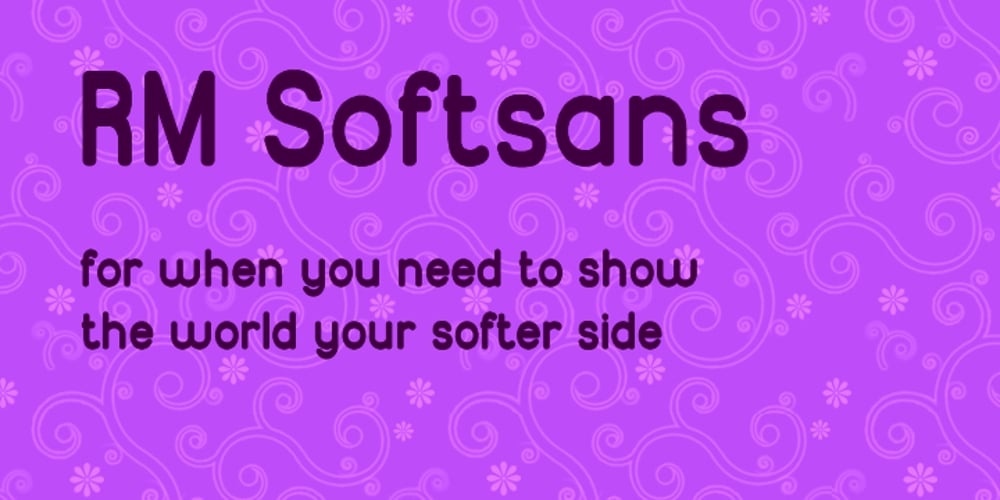
RM Softsans Font Family was designed by Ray Meadows and published by Ray Meadows. RM Softsans contains 2 styles and family package options. Strong and distinctive, yet soft and cuddly. This is a rounded sans serif design that features slightly thicker horizontals. Due to the modular nature of this design there may be a slight lack of smoothness to the curves at very large point sizes (around 100 pt and above).